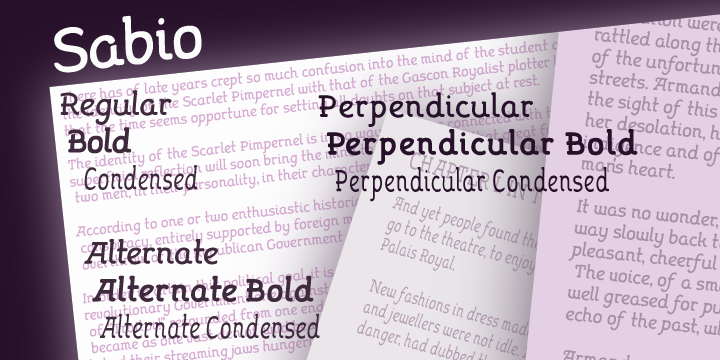
Sabio
Designed by: Paul James Lloyd
Designed when: 2008
Design owned by: Greater Albion Typefounders
Sabio
I regard Sabio as an evolutionary face. By this I mean that it merges elements of script and Roman design into one elegant whole.
The design was ‘evolved’ somewhere between these two classic approaches. The resulting family of faces makes an excellent display family, but is also clear and legible at small sizes and can be used as a text face with a distinctive flair.
Sabio is a wonderfully flexible face that can sit happily alongside artwork that owes its inspiration to any era from the Art Deco onwards. The regular form is gently and subtly oblique, and the glyphs have a slight hint of swash about them. Alternate and perpendicular forms are also offered. The regular, alternate and perpendicular forms are all in turn offered in regular, and bold weights as well as in a condensed form.
All in all Sabio is a humanist face with which almost anything can be done offering flair and elegance for almost any project. Whether it’s a distinctive way of setting paragraph text, or poster work that’s eye catching yet flowing and clearly legible, Sabio offers the answer.